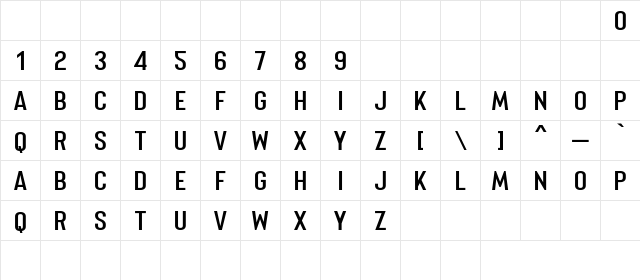
Merhique Bold
| Foundry | Shanaya Creative |
| Designer | Naya |
Design Context for Merhique Typeface
Merhique offers clean, dependable letterforms without strong stylistic allegiance, making it a practical choice for designers who need flexibility. Its bold stroke weight gives it real presence on the page.